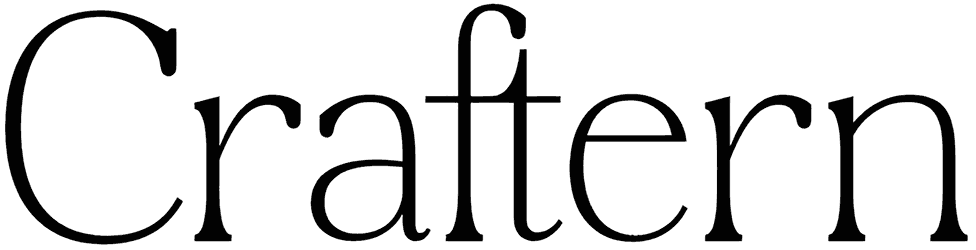
Craftern Font
Some typefaces feel luxurious because of decoration. Craftern feels luxurious because of its confidence. With elegant serif forms, refined contrast, and carefully balanced proportions, it brings a premium editorial quality to every word it touches. The letterforms have a timeless sophistication that feels equally suited to fashion branding, book covers, cosmetic packaging, magazine headlines, restaurant identities, and high-end product presentations.
What makes this serif font especially appealing is its ability to feel modern without abandoning the classic elegance that makes serif typography so enduring. It doesn’t rely on excessive flourishes or gimmicks; instead, it creates impact through craftsmanship, spacing, and beautifully controlled details. Sometimes the most powerful typography isn’t the one that follows trends; it’s the one that feels relevant year after year.